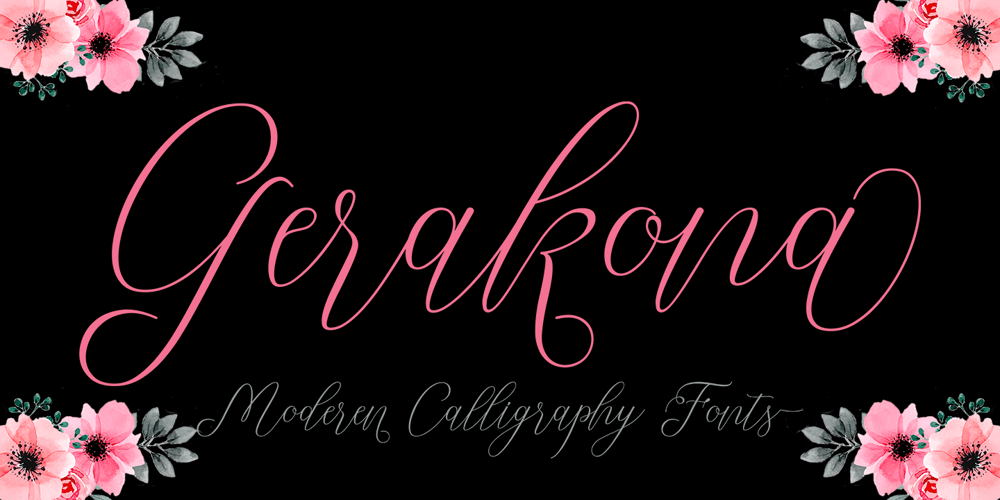
Gerakona Font Family was designed by Wais Alqarni and published by Ws Studio. Gerakona contains 1 styles and family package options. Gerakona is a lovely and delicate script font that exudes elegance and class. This font was particularly crafted for those who need a beautiful and refreshing look to their designs. Gerakona is PUA encoded which means you can access all of the glyphs and swashes with ease!